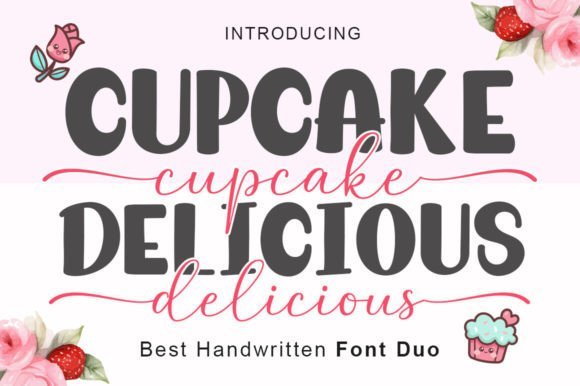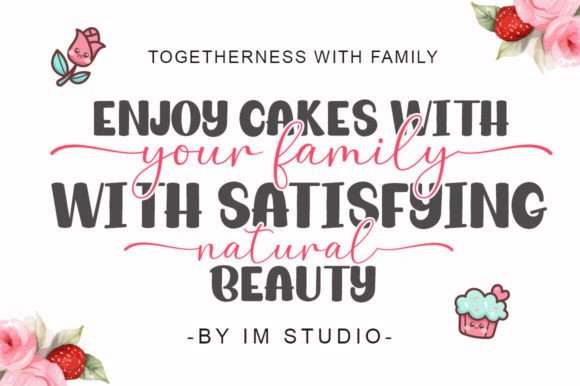
Celebrating Love with Cupcake Delicious Duo Font
As you sit down to craft a heartfelt birthday message or a loving wedding invitation, you want the words to feel as sweet as the occasion itself. This is where the magic of Cupcake Delicious Duo Font comes in – a delightful duo font that effortlessly combines the elegance of sans serif with the charm of script, perfect for adding a romantic touch to your creations.
This versatile font is a valuable addition to any designer’s toolkit, offering endless possibilities for applications ranging from greeting cards to captivating headlines. With its PUA coding, accessing all the glyphs and bindings is a breeze, allowing you to focus on what matters most – bringing your ideas to life with Cupcake Delicious Duo Font.
Cupcake Delicious Duo Font Key Features
- Font Styles: Regular and Bold font styles are available for a variety of design needs.
- Character Set: The font includes a comprehensive character set, including uppercase and lowercase letters, numbers, and punctuation marks.
- Size and Resolution: The font is designed to be scalable, making it suitable for use in a range of sizes and resolutions, including print and digital applications.
- Unique Characteristics: The Cupcake Delicious Duo Font features a playful, whimsical design with a mix of bold and delicate elements, making it perfect for adding a touch of sweetness to designs.
Cupcake Delicious Duo Font Review
I recently had the chance to work with the “Cupcake Delicious Duo Font” and here’s my honest review.
- Playful and whimsical design – The font is perfect for adding a touch of fun and playfulness to your designs.
- Easy to read – Despite its playful nature, the font is still easy to read, even at smaller sizes.
- Great for baking-related projects – The font’s name and design make it a great fit for baking-related projects, such as recipe books, food blogs, or social media posts.
- Limited versatility – The font’s design and style may be too specific for some projects, limiting its versatility.
- No bold or italic styles – The font only comes in regular and bold styles, which may not be suitable for all design needs.
- May not be suitable for formal projects – The font’s playful design may not be suitable for formal projects or professional branding.
Overall, I think the “Cupcake Delicious Duo Font” is a great addition to any designer’s toolbox, especially for baking-related projects. While it may have some limitations, its unique design and easy readability make it a great choice for many design needs.
Use the Cupcake Delicious Duo Font to create eye-catching headings and titles.
Pair the font with a contrasting color scheme to make it stand out.
Experiment with different font sizes and combinations to create a unique visual effect.
Bakery or food-related branding and marketing materials.
Wedding invitations or decorations.
Cookbooks or recipe websites.
Compared to Cupcake Delicious Duo Font, Great Vibes Font has a more refined and sophisticated feel. While Cupcake Delicious Duo Font is playful and whimsical, Great Vibes Font is more subtle and versatile.
Compared to Cupcake Delicious Duo Font, Pacifico Font has a more refined and polished feel. While Cupcake Delicious Duo Font is playful and fun, Pacifico Font is more elegant and sophisticated.